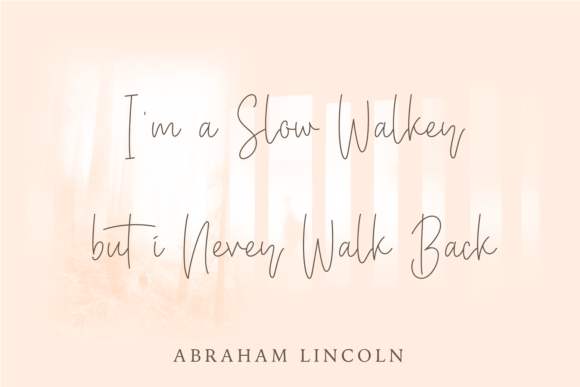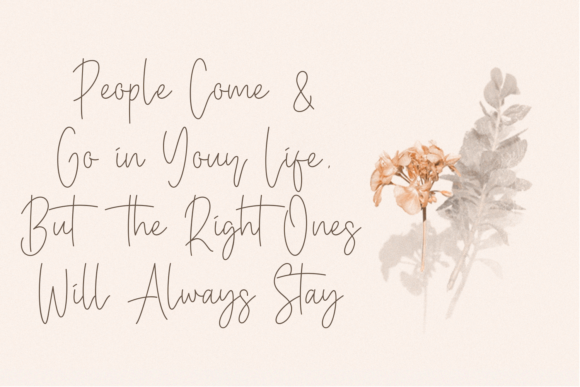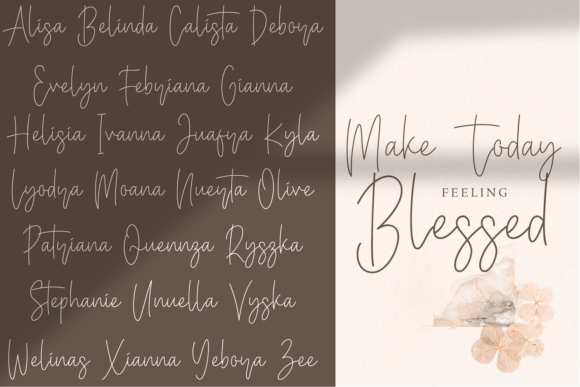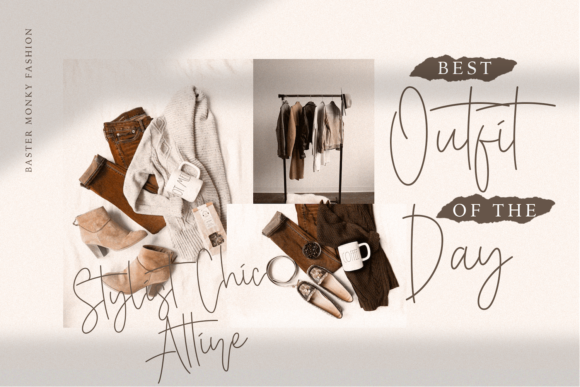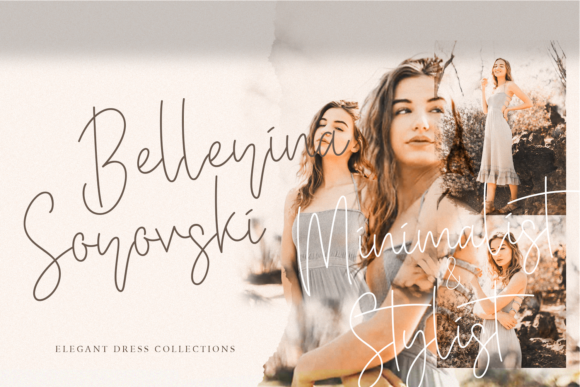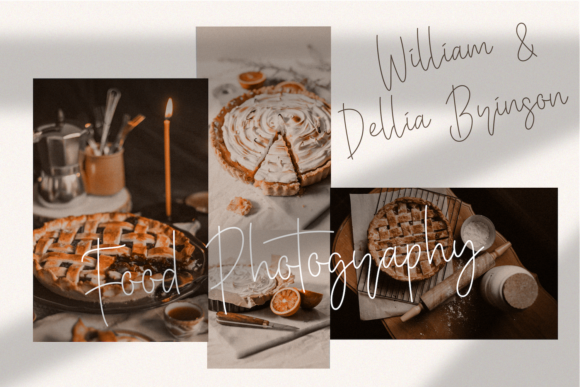
Baster Monky Font: Elevate Your Designs with Elegance and Sophistication
In the world of typography, a font can make or break a design. For designers and crafters seeking to add a touch of elegance and sophistication to their projects, Baster Monky Font is an exquisite choice. This handwritten font is masterfully designed to become a true favorite, boasting classy calligraphic influences while feeling contemporary and fresh.
The Charm of Baster Monky Font
Baster Monky Font is a beautiful, handcrafted typeface that exudes refinement and poise. Its elegant strokes and curves evoke a sense of luxury, making it perfect for high-end designs, branding, and marketing materials. The font’s unique character lies in its ability to balance classic calligraphic elements with modern flair, resulting in a truly distinctive look.
Key Features of Baster Monky Font
• Handwritten with love: Baster Monky Font is carefully crafted by hand, giving it a personal and organic feel.
• Classy calligraphic influences: The font’s roots in traditional calligraphy are evident in its flowing strokes and elegant letterforms.
• Contemporary and fresh: Despite its classic influences, Baster Monky Font feels modern and relevant, making it suitable for a wide range of design applications.
• Versatile: This font can be used for various design projects, from logos and branding to invitations, packaging, and more.
Why Choose Baster Monky Font?
With so many fonts available, why choose Baster Monky Font for your next project? Here are a few compelling reasons:
• Stand out from the crowd: Baster Monky Font’s unique character ensures your design will grab attention and leave a lasting impression.
• Elegance and sophistication: This font’s refined appearance is perfect for high-end brands, luxury products, and premium services.
• Easy to read: Despite its elegant nature, Baster Monky Font remains highly legible, making it suitable for body text and headlines.
• Time-saving: With Baster Monky Font, you can achieve professional-looking results without spending hours on design.
Design Applications for Baster Monky Font
Baster Monky Font’s versatility makes it suitable for a wide range of design applications, including:
• Branding and logos: Create a lasting impression with a custom logo or branding materials featuring Baster Monky Font.
• Invitations and events: Add a touch of elegance to wedding invitations, party invites, and other event materials.
• Packaging and product design: Elevate your product packaging with a sophisticated font that reflects your brand’s values.
• Marketing materials: Use Baster Monky Font in brochures, flyers, and other marketing materials to create a cohesive brand image.
Tips for Using Baster Monky Font
To get the most out of Baster Monky Font, consider the following tips:
• Pair with complementary fonts: Combine Baster Monky Font with simpler fonts to create visual interest and hierarchy.
• Experiment with colors: Try different color schemes to find the perfect match for your brand or design.
• Adjust font sizes: Play with font sizes to create emphasis and add depth to your design.
Baster Monky Font is an exceptional choice for designers and crafters seeking to add a touch of elegance and sophistication to their projects. With its unique blend of classic calligraphic influences and modern flair, this exquisite handwritten font is sure to become a favorite. Whether you’re working on branding, marketing materials, or packaging, Baster Monky Font is the perfect choice for elevating your designs to the highest levels.